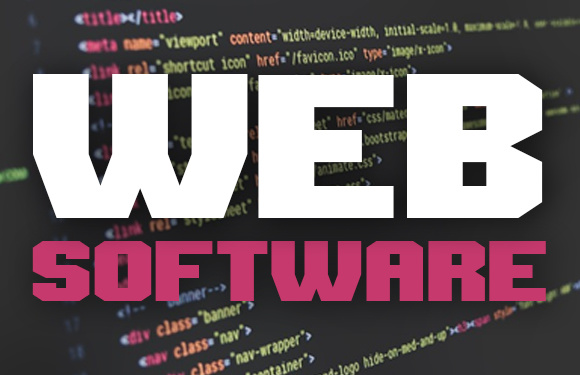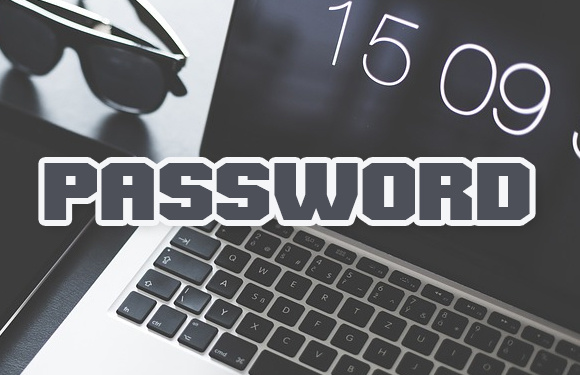
Introduction to Login Font
Have you ever been in the midst of a creative project, staring at a blank canvas, and suddenly, a spark of inspiration strikes? You envision a bold, eye-catching design that demands attention, and the perfect font is the key to unlocking that vision. For designers seeking a high-quality, attention-grabbing font, the Login Font is an ideal choice.
This free download is a versatile design resource that can elevate your creative project with its sleek, techno aesthetic. With a transparent background, the Login Font can be easily integrated into various print materials, such as flyers and posters, making it a valuable asset for any designer.
Whether you’re working on a marketing campaign or a personal project, the Login Font is sure to make a lasting impression. Its bold and modern design makes it an excellent addition to any design portfolio, and its free availability makes it accessible to designers of all levels.
Login Font
- High-quality, vector font design for creative projects
- Unique, modern design suitable for a wide range of creative projects
- Includes a comprehensive character set with Latin and Cyrillic alphabets
Honest Review: Login Font
I recently came across the Login Font, and I must say it’s a solid addition to any designer’s toolkit. As a designer, I’m always on the lookout for high-quality design resources that can elevate my creative projects.
One of the standout features of Login Font is its clean and modern aesthetic, making it perfect for a wide range of applications. The font is available for free download, which is always a bonus.
The transparent background of Login Font also makes it easy to integrate into any design project. Whether you’re working on a website, mobile app, or print material, this font is sure to impress.
Here are some of the things that work well with Login Font:
- ✨ Clean and modern design
- ✨ High-quality typography
- ✨ Transparent background for easy integration
- ⚠️ Limited character set
- ⚠️ Not suitable for large-scale text
Overall, I’m impressed with the Login Font. It’s a great resource for designers looking for a modern and stylish font to add to their design arsenal.
Use the Login Font in combination with other design resources, such as graphics and textures, to create a unique and creative design. Experiment with different font sizes and styles to find the perfect look for your project.
The Login Font is perfect for a variety of design projects, including social media graphics, presentations, and custom graphics. It’s also great for use in creative projects, such as logos, business cards, and brochures.